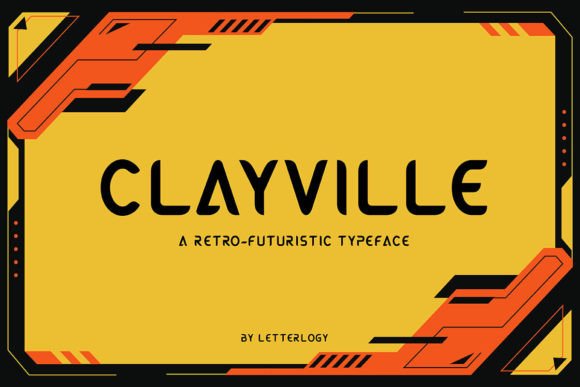
Introducing Clayville Font, the epitome of retro-futuristic elegance crafted to elevate your design projects! Immerse yourself in a mesmerizing blend of classic, modern, and futuristic elements, meticulously curated by the talented team at Letterlogy. With its versatile sans serif style, Clayville Font is set to revolutionize your creative endeavors.
Unleash your imagination and embark on a design journey like no other with Clayville Font. Showcasing a perfect fusion of timeless aesthetics and cutting-edge innovation, this font family is a must-have for any design enthusiast. Whether you're working on a vintage-inspired logo, a sleek website, or eye-catching print materials, Clayville Font effortlessly adapts to every project, breathing life into your vision.
Crafted with unwavering attention to detail, Clayville Font offers both OTF and TTF formats, ensuring seamless compatibility across various platforms. Experience the smooth curves and precise lines that bring your words to life, captivating your audience with every stroke. As a bonus, we are delighted to offer a FREE cyberpunk-themed background, perfectly complementing the futuristic essence of Clayville Font.
Why settle for ordinary when you can embrace extraordinary? Clayville Font invites you to break free from the mundane and infuse your designs with unparalleled flair. Its captivating presence on your collection page will leave a lasting impression, enticing users with its unique blend of nostalgia and innovation.
Imagine the impact of Clayville Font on your brand identity. Picture your logo standing out from the crowd, evoking emotions of both nostalgia and anticipation. With its captivating aura, this font breathes life into your designs, establishing an instant connection with your target audience. From websites to packaging and everything in between, Clayville Font ensures your brand exudes timeless elegance.
In a world where first impressions matter, Clayville Font empowers you to make a statement. Its versatile nature allows you to effortlessly convey a wide range of emotions to your audience. Whether you seek sophistication, modernity, or a touch of the future, Clayville Font is your gateway to captivating design.